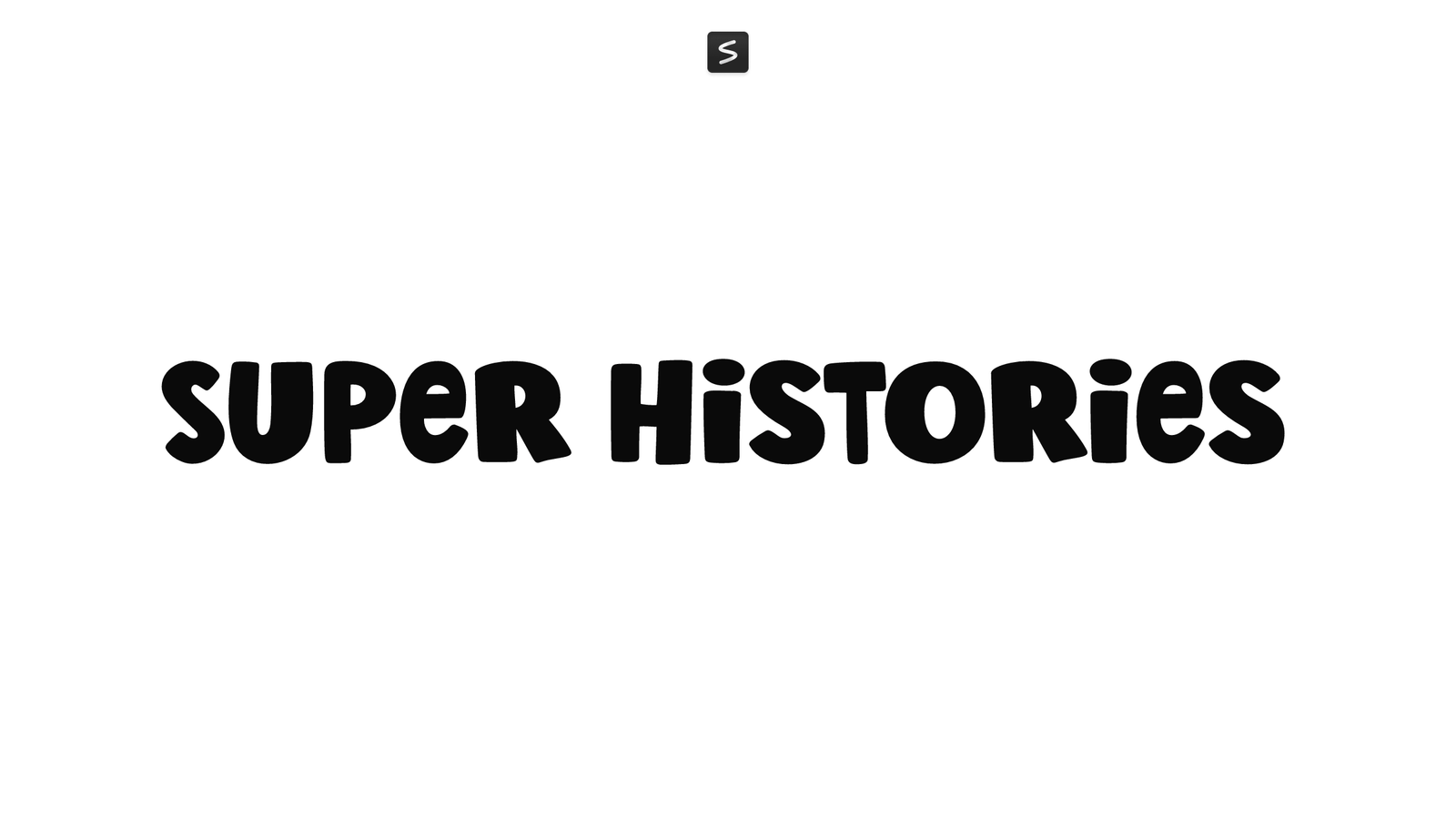
Super Histories is a chunky, rounded display font with a contemporary cartoon sensibility, designed by fsuarez913. Its heavy weight and friendly curves create an approachable, energetic tone that works well for projects targeting younger audiences or contexts that need warmth and playfulness.
The font’s rounded letterforms and substantial stroke weight give it a soft, welcoming quality without sacrificing presence. Its proportions feel modern and clean, making it legible at larger sizes while maintaining character and personality. The curves are generous and consistent, creating a cohesive rhythm across words and headlines.
Super Histories works well for children’s book covers, toy packaging, educational materials, comic strips, social media graphics, and any project where friendliness and clarity matter. It’s also suited to branding that wants to feel approachable and youthful. If you need a bold, rounded font that reads as contemporary rather than retro, Super Histories is a solid choice.